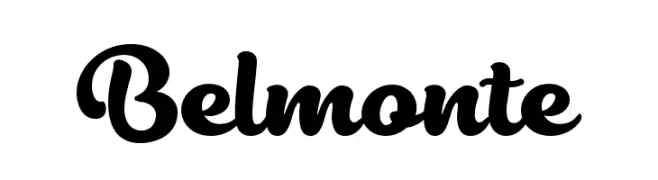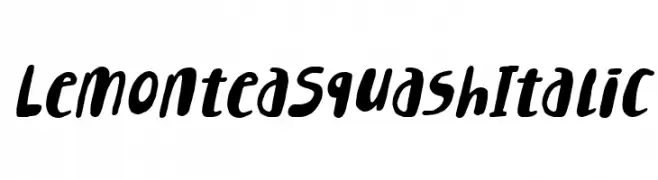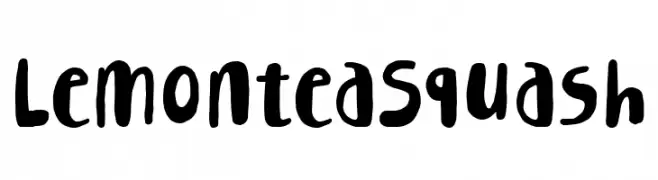
( Fonts by Billy Argel )
An elegant and ornate script font with flowing, decorative letterforms.
( Dnl Mnts - Daniel Montes Gutierrez )
A sleek, modern font with a dynamic slant and consistent stroke thickness.
( Hanoded - David Kerkhoff - www.hanodedfonts.com )
A bold, decorative font with dramatic curves and artistic flair.
( Nasir Udin - creativemarket.com/vectro?u=vectro )
A bold, cursive font with smooth, flowing lines and a lively appearance.
( Nasir Udin - creativemarket.com/vectro?u=vectro )
A bold, textured font with a vintage, hand-drawn appearance.
A playful, geometric font with bold lines and curves, blending modern and retro styles.
( Fonts by 7NTypes )
A bold, italicized font with playful, rounded strokes and a dynamic style.
( Fonts by 7NTypes )
A playful, bold, and hand-drawn font with a whimsical style.
( Fonts by Inopatype )
A bold, playful font with dotted patterns and geometric shapes.